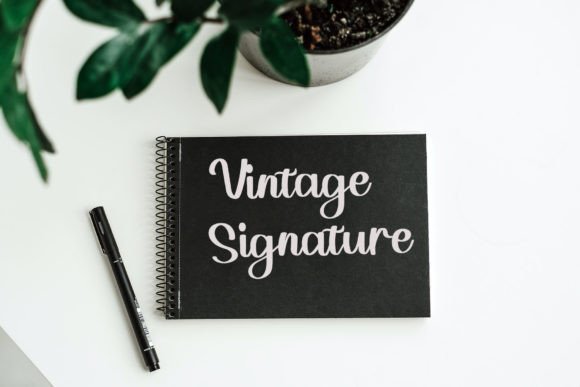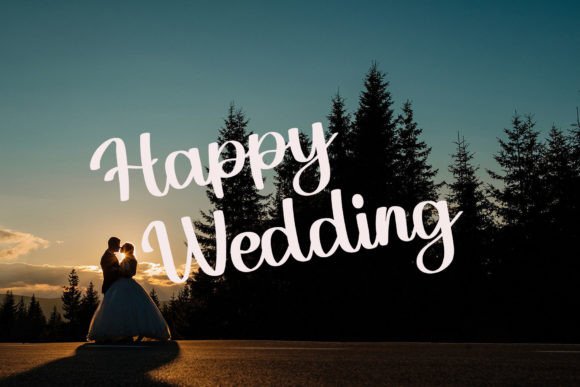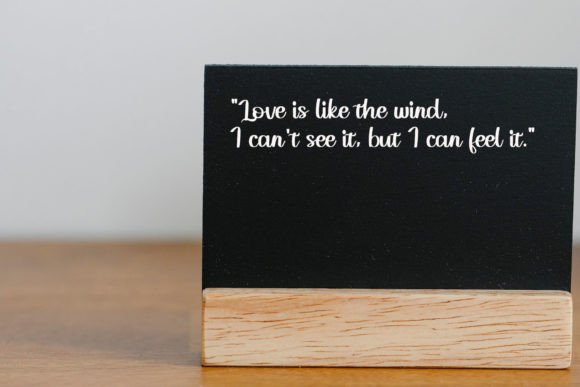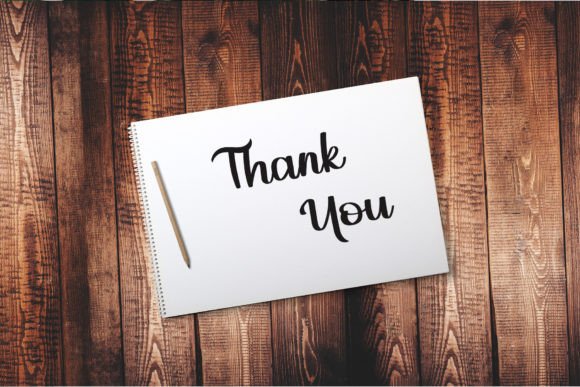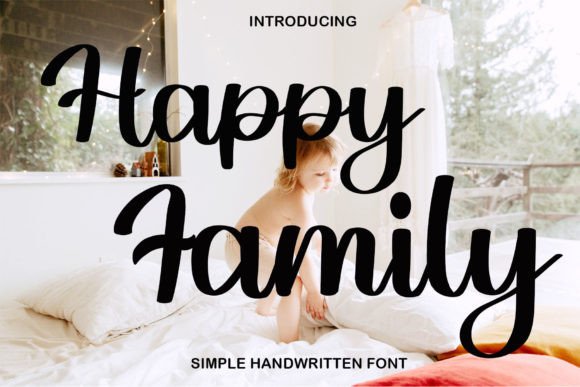
Introducing Happy Family Font: The Perfect Addition to Your Design Arsenal
Are you tired of using the same old fonts for your design projects? Look no further! Happy Family Font is a stunning handwritten font that is sure to elevate your designs to the next level. With its elegant touch and timeless style, this font is perfect for designers and crafters who want to add a personal touch to their work.
What Makes Happy Family Font So Special?
Happy Family Font is a neat and beautiful handwritten font that is described by its elegant touch. It’s perfect for your favorite projects, and its incredibly distinct style will make your designs stand out from the crowd. The font’s unique charm is sure to fall in love with, and it’s an excellent choice for anyone who wants to create spectacular designs.
Key Features of Happy Family Font
- Elegant Touch: Happy Family Font has an elegant touch that makes it perfect for designs that require a personal and sophisticated feel.
- Timeless Style: The font’s timeless style ensures that your designs will never go out of fashion, and it will remain a classic for years to come.
- Distinctive: Happy Family Font has an incredibly distinct style that will make your designs stand out from the crowd.
- Handwritten: The font’s handwritten style gives it a personal touch that’s perfect for designs that require a human feel.
Happy Family Font is perfect for designers and crafters who want to add a personal touch to their work. Whether you’re designing a logo, creating a brochure, or crafting a handmade card, this font is sure to impress. Its elegant touch and timeless style make it an excellent choice for a wide range of design projects, including:
- Logos: Create a stunning logo for your business or brand with Happy Family Font.
- Brochures: Design a beautiful brochure that showcases your products or services with this elegant font.
- Posters: Create a eye-catching poster that grabs attention with Happy Family Font.
- Handmade Cards: Add a personal touch to your handmade cards with this beautiful handwritten font.
Why Choose Happy Family Font?
There are many fonts available online, but Happy Family Font stands out from the rest. Here are some reasons why you should choose this font for your design projects:
- Unique: Happy Family Font has a unique style that’s not easily found elsewhere.
- High-Quality: The font is of high-quality, making it perfect for professional designs.
- Elegant: The font’s elegant touch makes it perfect for designs that require a sophisticated feel.